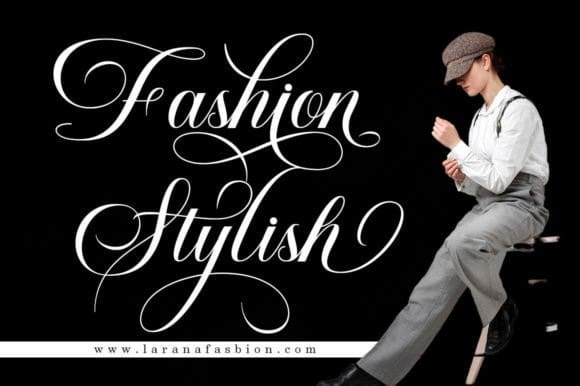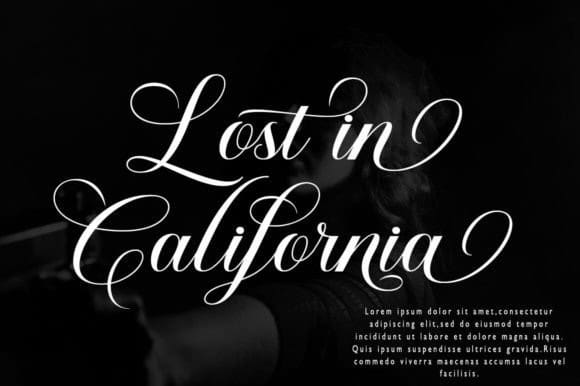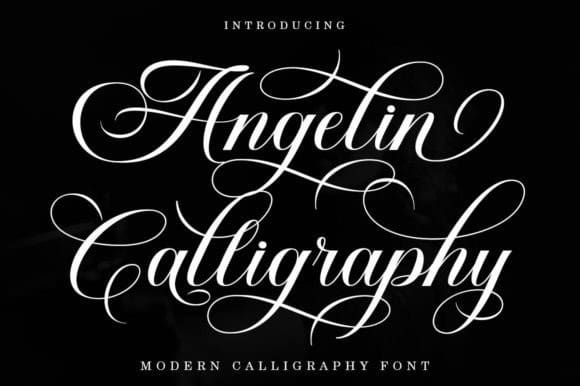
Angelin Calligraphy Typeface
Angelin Calligraphy Typeface is attractive because it is sleek, clean, feminine, sensual, glamorous, simple and very easy to read, thanks to the many luxurious letter connections. I also offer a number of viable stylistic alternatives for some letters. The classic style is very suitable to be applied in various formal forms such as invitations, labels, restaurant menus, logos, fashion, make up, stationery, novels, magazines, books, greeting/wedding cards, packaging, labels or all kinds of advertising purposes.